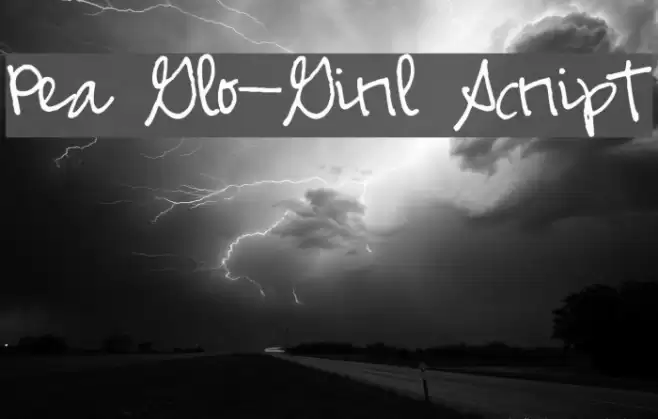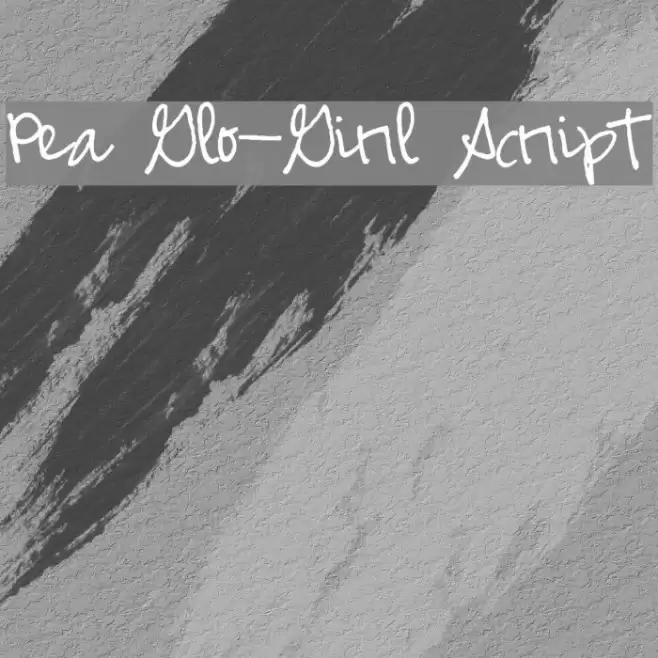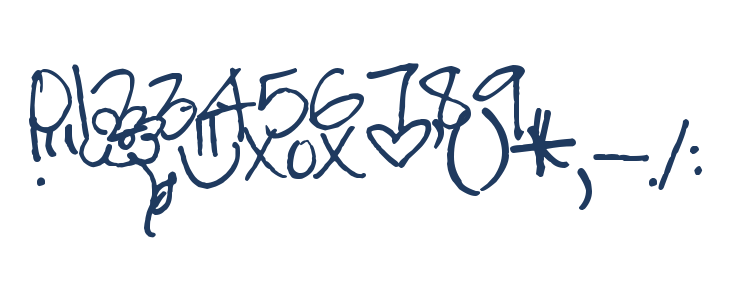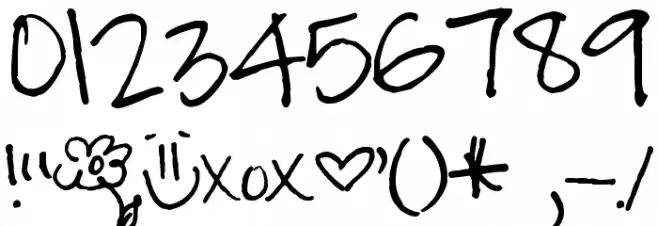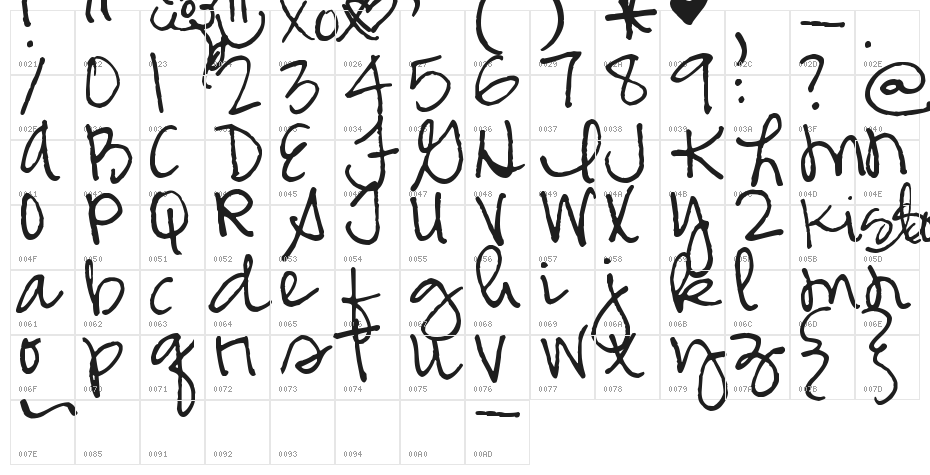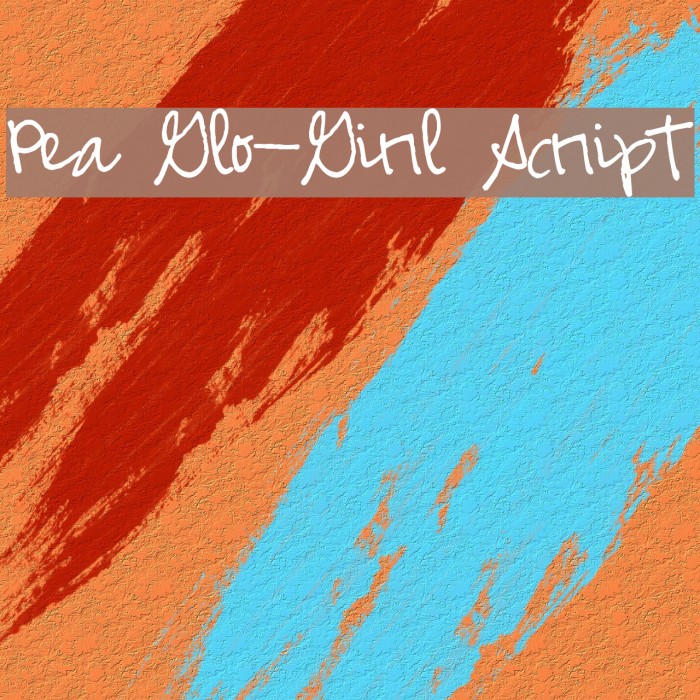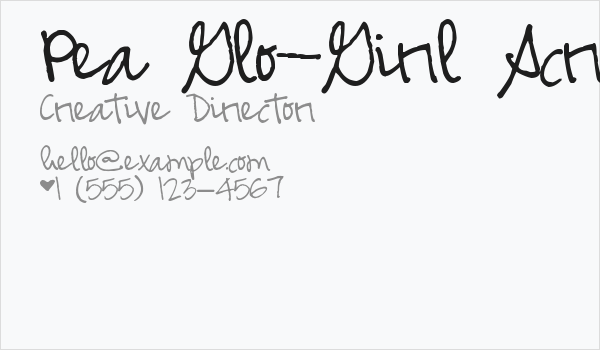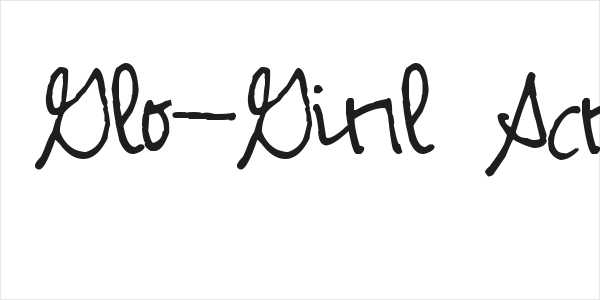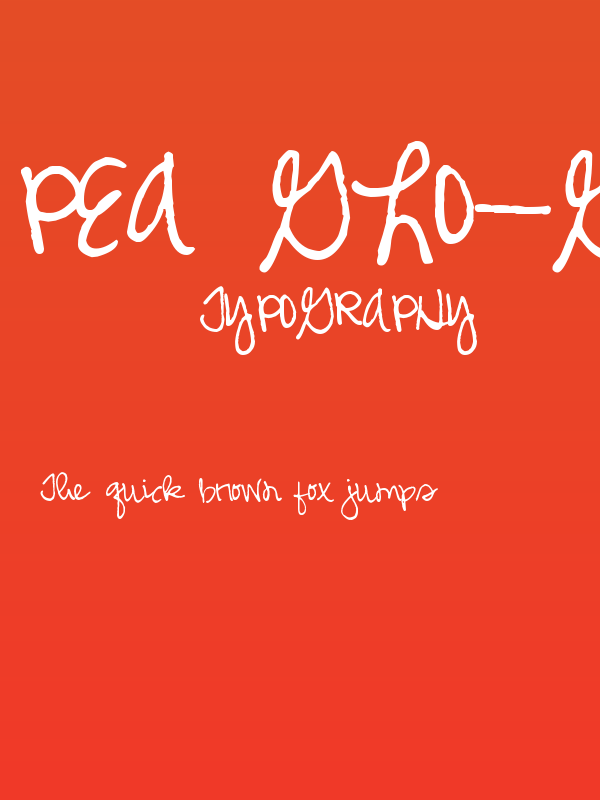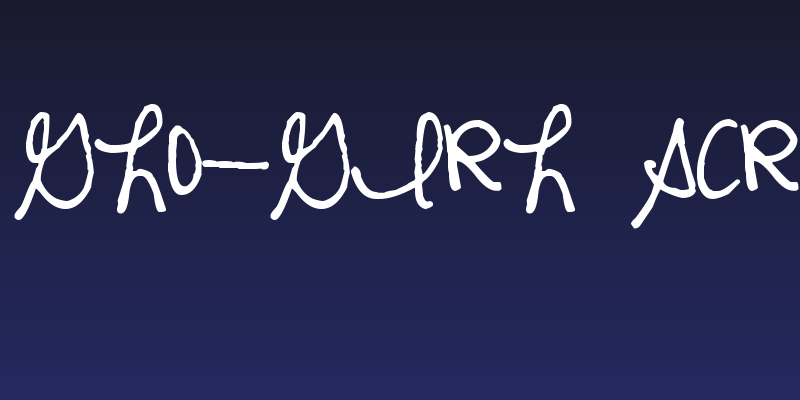
Pea Glo-Girl Script Font
Pea Glo-Girl Script Description
This playful and energetic script font exudes a casual, handwritten charm. The letters are characterized by their fluid, looping strokes and varying baseline, giving it a lively and informal appearance. The uppercase letters maintain a consistent height, while the lowercase letters exhibit a more whimsical and freeform style. The numbers and special characters follow the same playful aesthetic, adding to the font's overall cohesive look. The strokes are bold and confident, with a medium contrast that enhances readability while maintaining the font's dynamic personality.
A playful, handwritten script font with bold, fluid strokes and a lively character from Uncategorized fonts.
- Proposed Projects: Ideal for greeting cards, personal branding, social media graphics, and playful invitations.
- Overall Style: Playful, Casual
- Use Case: Logos, Headlines, Invitations